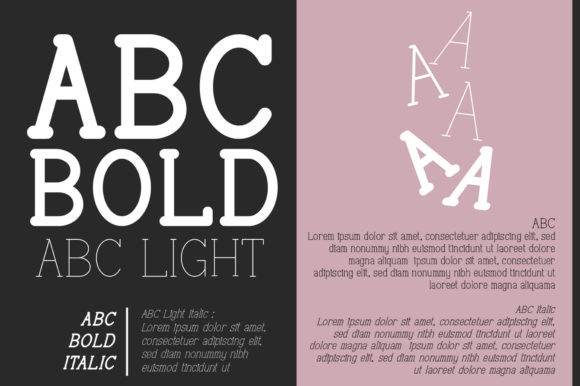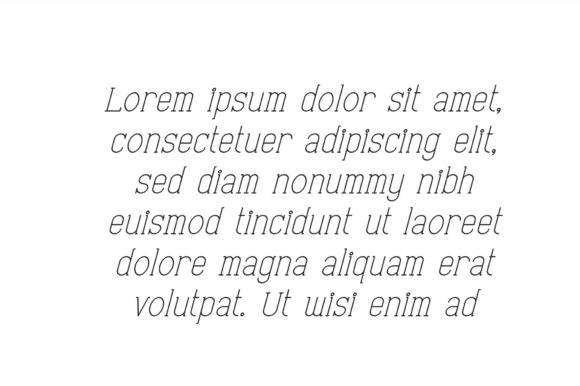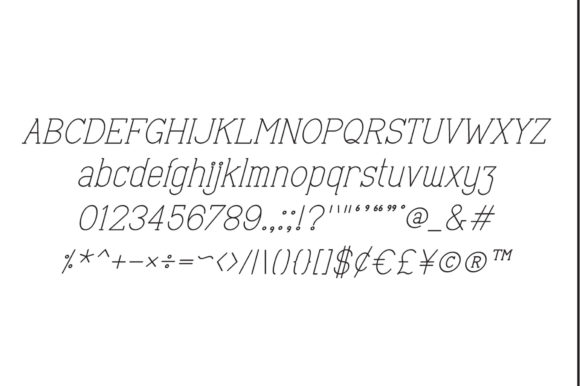
Unleashing the Power of ABC Italic Font: Elevate Your Designs with Style
Do you remember the moment when you stumbled upon that perfect font that made your design project come alive? For many of us, it’s that instant when we know we’ve found the perfect companion for our creative endeavors. It’s like finding the missing piece of a puzzle, and everything just clicks. For designers, discovering a font that resonates with our vision can be a game-changer.
Enter the ABC Italic Font, a clean and simple serif font that is perfect for writing books, web designs, business cards, or pretty much anything else that requires a touch of elegance. Its versatility makes it an ideal choice for designers looking to add a unique flair to their projects. Whether you’re a seasoned pro or a beginner, the ABC Italic Font is a valuable addition to your design toolkit.
With its sleek and sophisticated look, the ABC Italic Font is sure to elevate your designs to the next level. Say goodbye to bland and generic fonts, and hello to a world of creativity and self-expression. Get ready to unleash the full potential of your designs with the ABC Italic Font.
• Italic Style: The font’s italic style is designed to add emphasis and create visual interest, making it a great choice for titles, headings, and quotes.
• Legibility: The font is designed for optimal legibility, with clear and crisp letterforms that are easy to read even at small sizes.
• Unique Characteristics: The font features a distinctive, elegant feel with subtle flair and flair-like features, making it a great choice for creative and design-oriented projects.
Designer Review: ABC Italic Font
Overall, I have mixed feelings about the ABC Italic Font. On one hand, it has some great features that make it suitable for certain projects. ✨
• The font has a unique and elegant design that can add a touch of sophistication to any text.
• It’s highly legible, even at small font sizes, making it perfect for body text or small titles.
• The italic style adds a nice flair to the font, making it stand out from more traditional serif fonts.
However, there are some limitations that might make it less suitable for other projects. ⚠️
• The font’s italic style can be a bit too dramatic for some designs, overpowering the rest of the text.
• The font’s character set is limited, making it less versatile for languages with non-Latin scripts.
• The font’s design can be a bit too ornate for modern and minimalist designs.
Overall, I would recommend the ABC Italic Font for projects that require a touch of elegance and sophistication, such as high-end marketing materials, luxury branding, or fine art projects. However, for more modern or minimalist designs, you might want to consider other options.
For best results, use the font in a clean and simple design to showcase its elegant and sophisticated look.
For best results, use the font in a high-resolution image to take full advantage of its elegant and sophisticated look.
For best results, use the font in a clean and simple design to showcase its elegant and sophisticated look.
ABC Italic Font is perfect for:
Formal event announcements
Book covers and book titles
Business cards and letterheads
Any design where a sophisticated and elegant look is desired.